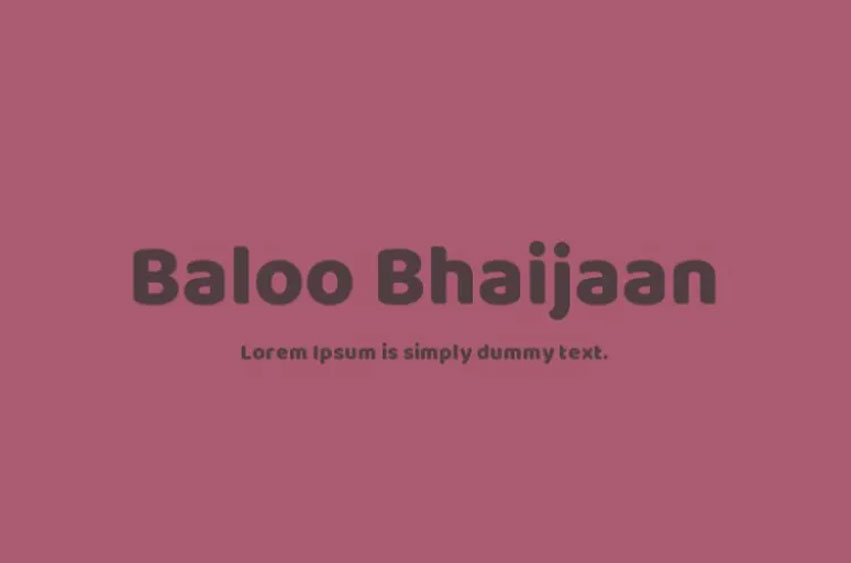
Baloo Bhaijaan Font
Baloo Bhaijaan Font is an entertaining typeface that is display that was designed by Ek Sort. Supported by nine Indian scripts and one Latin character set, all the members of the family are Unicode compliant and are available under the libre license – with a spurless style and a note of humor, Baloo is a versatile font family that fulfills all the basic criteria for use as an everyday typeface.
Baloo adds liveliness wherever it goes by packing multiple scripts into the same weight as one and ensuring even treatment in its behavior for one script or many, as desired. Powerful yet humble and approachable yet fun; Baloo brings life to every place it goes!
The Baloo project currently consists of nine fonts with neighborhood names different for each Indic script. Moreover, every font includes Latin Extended glyphs and Vietnamese letters also.